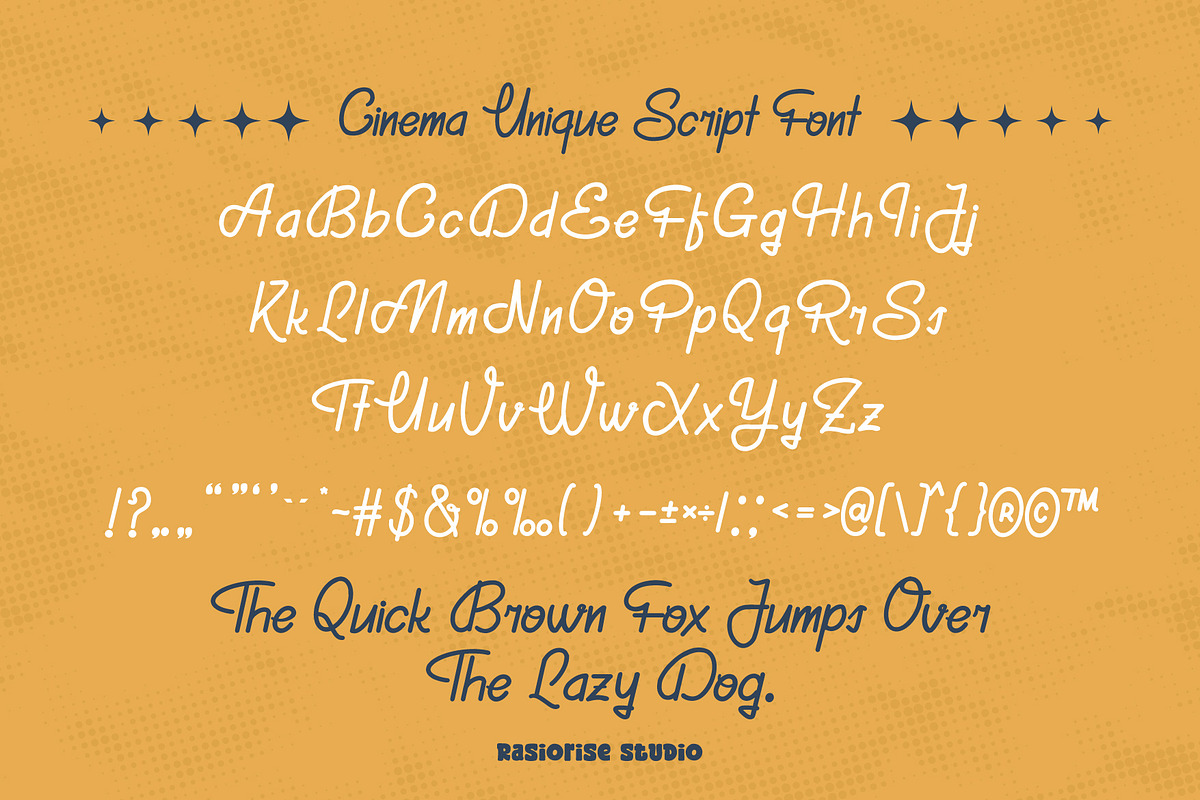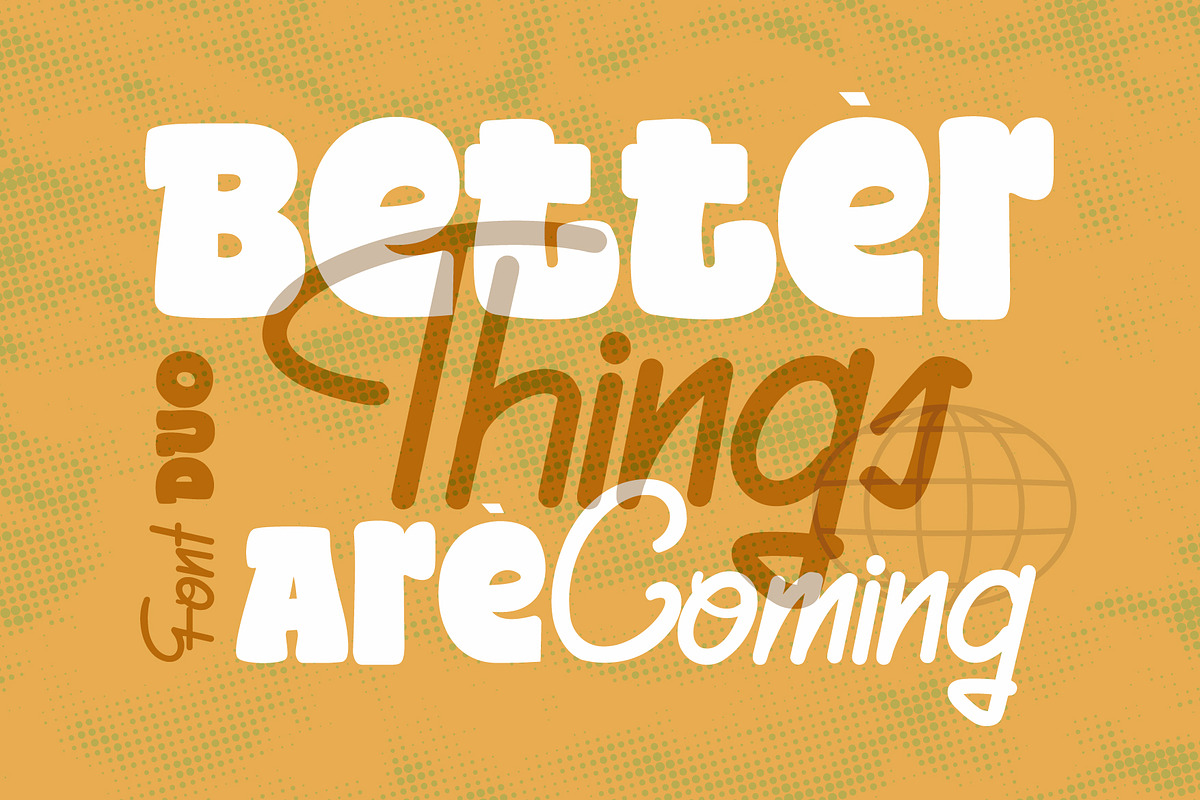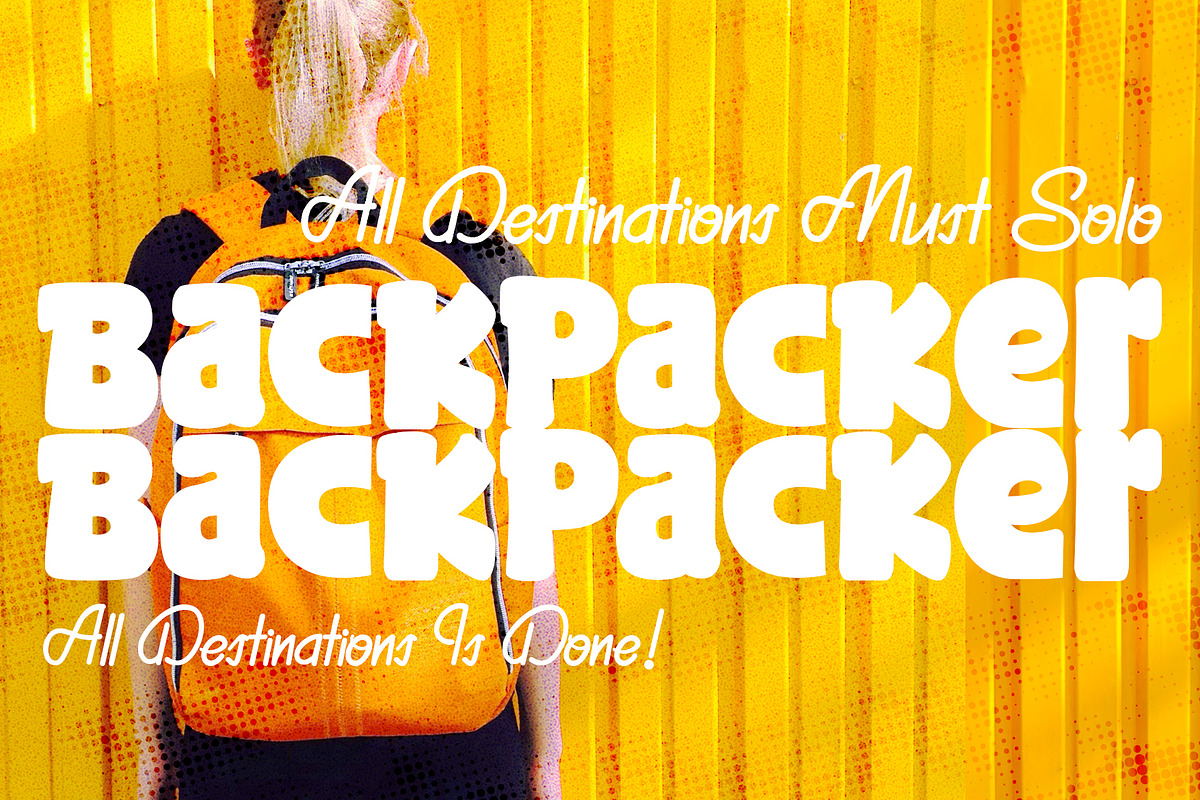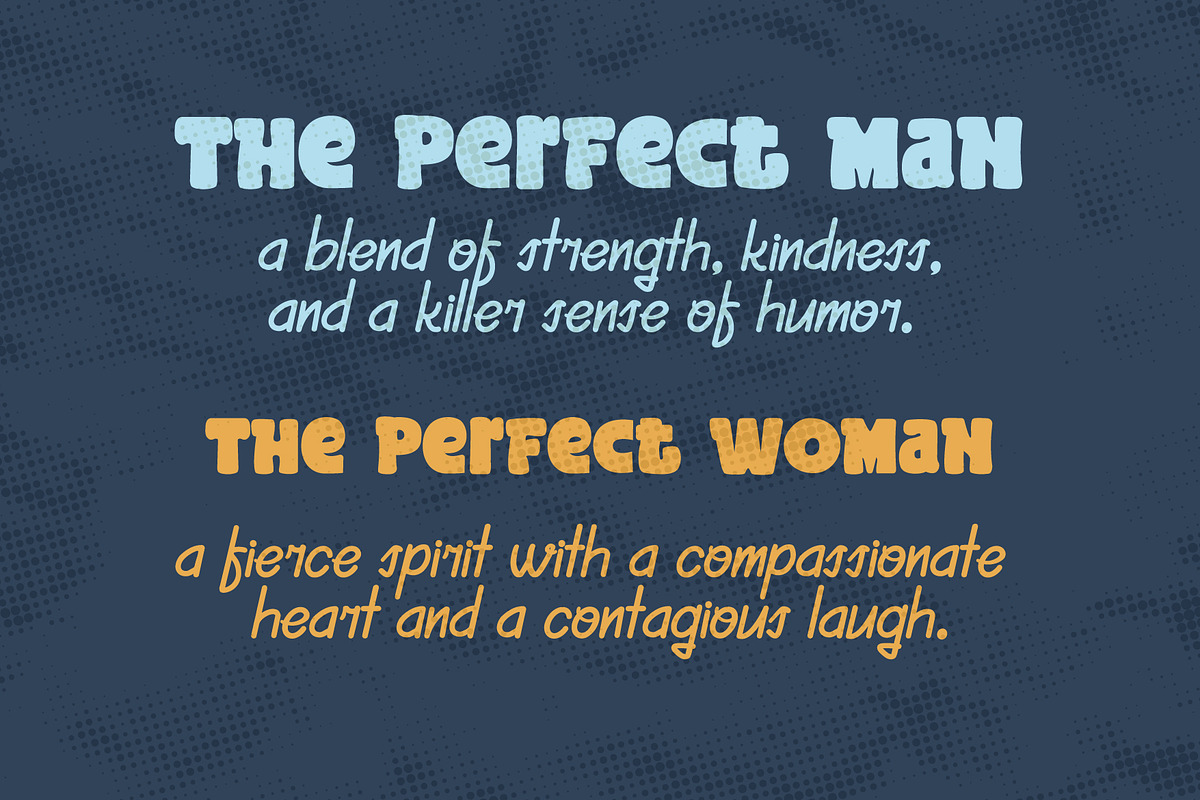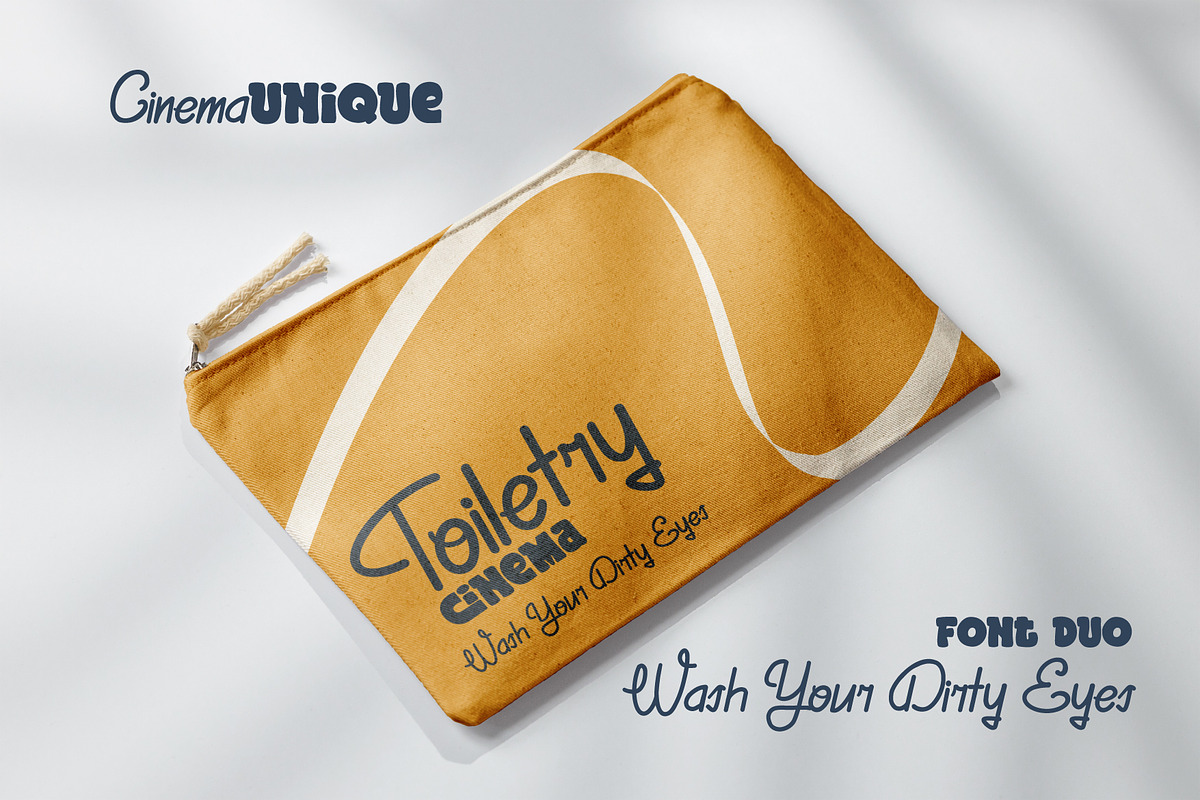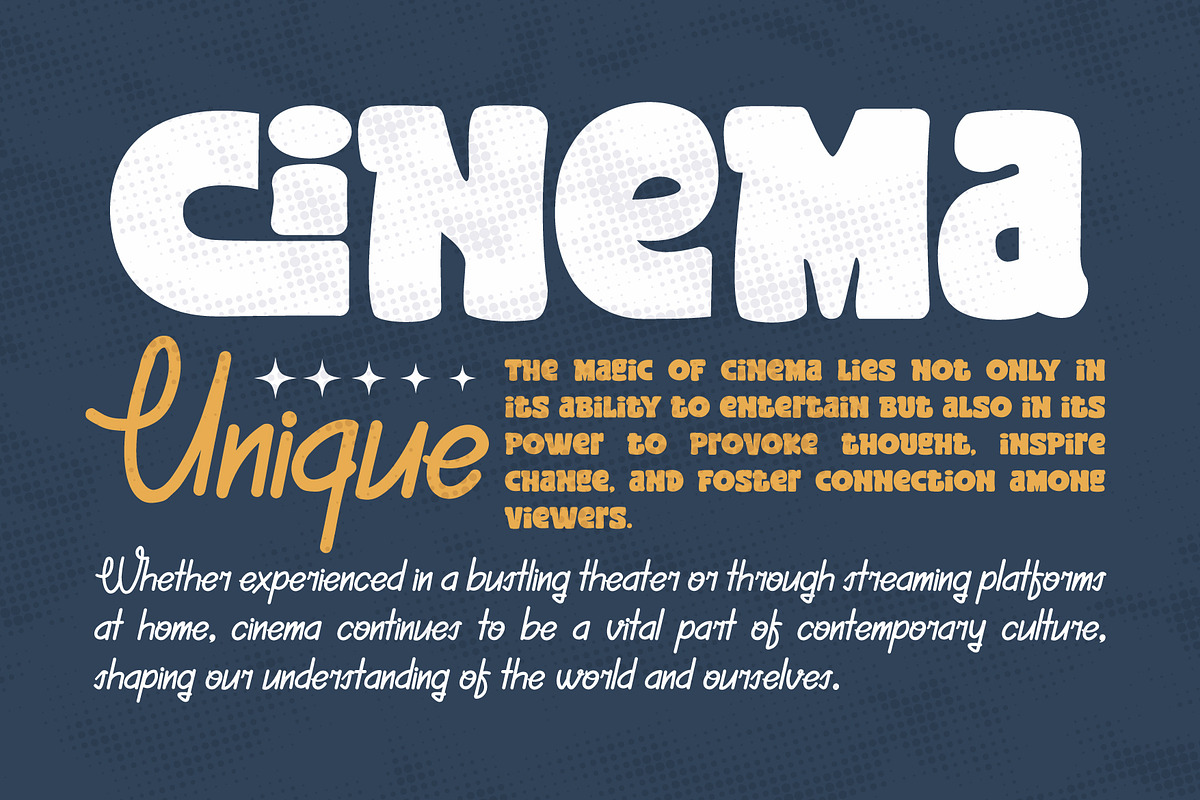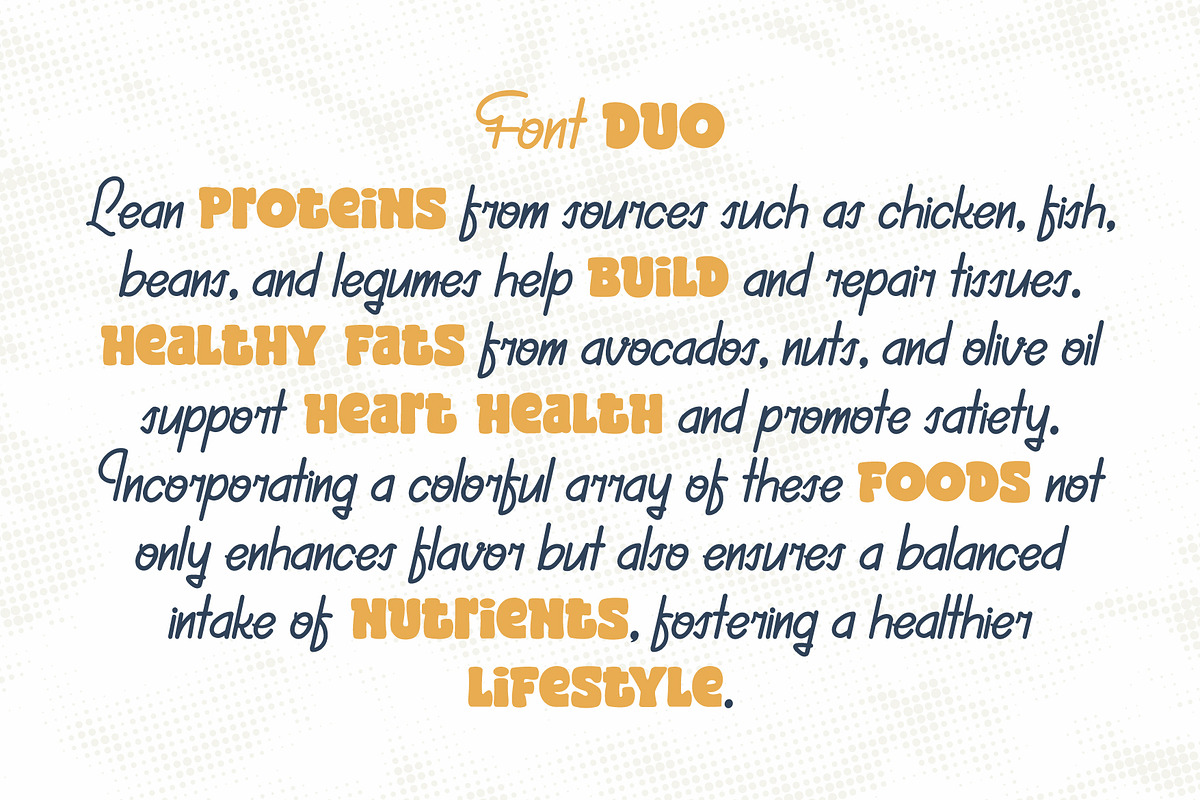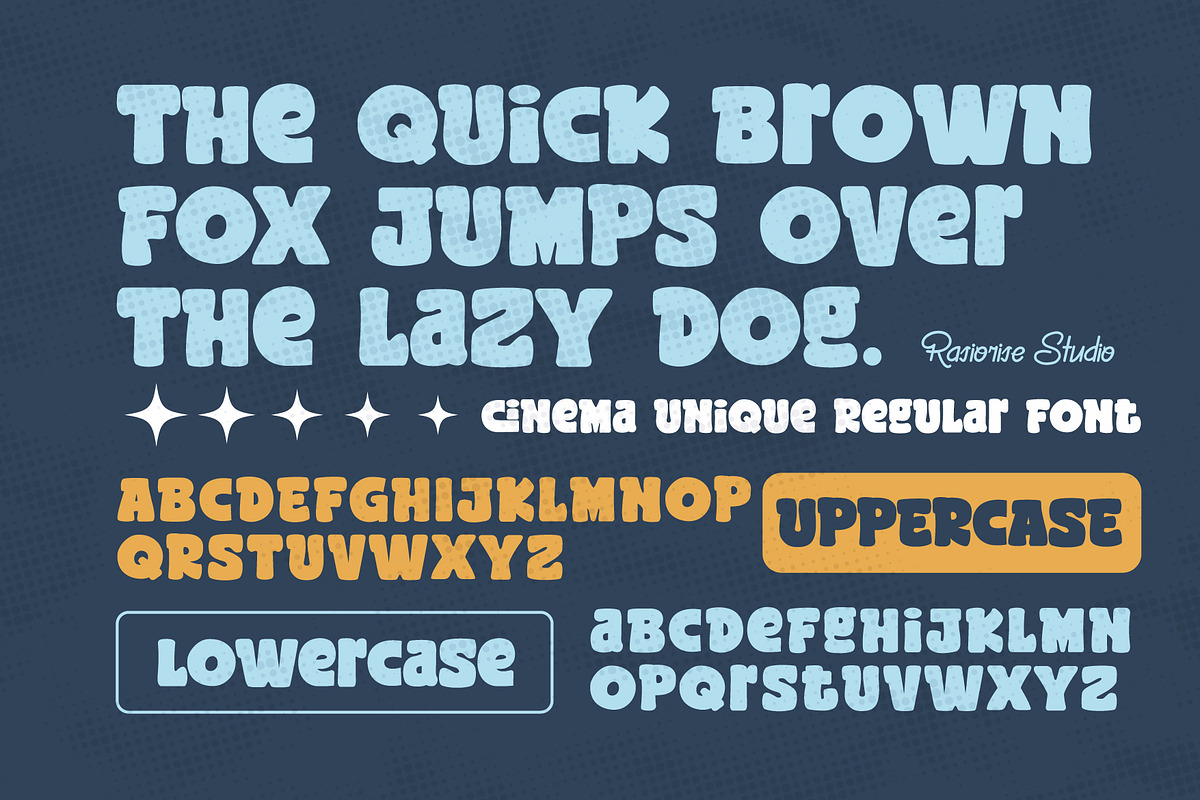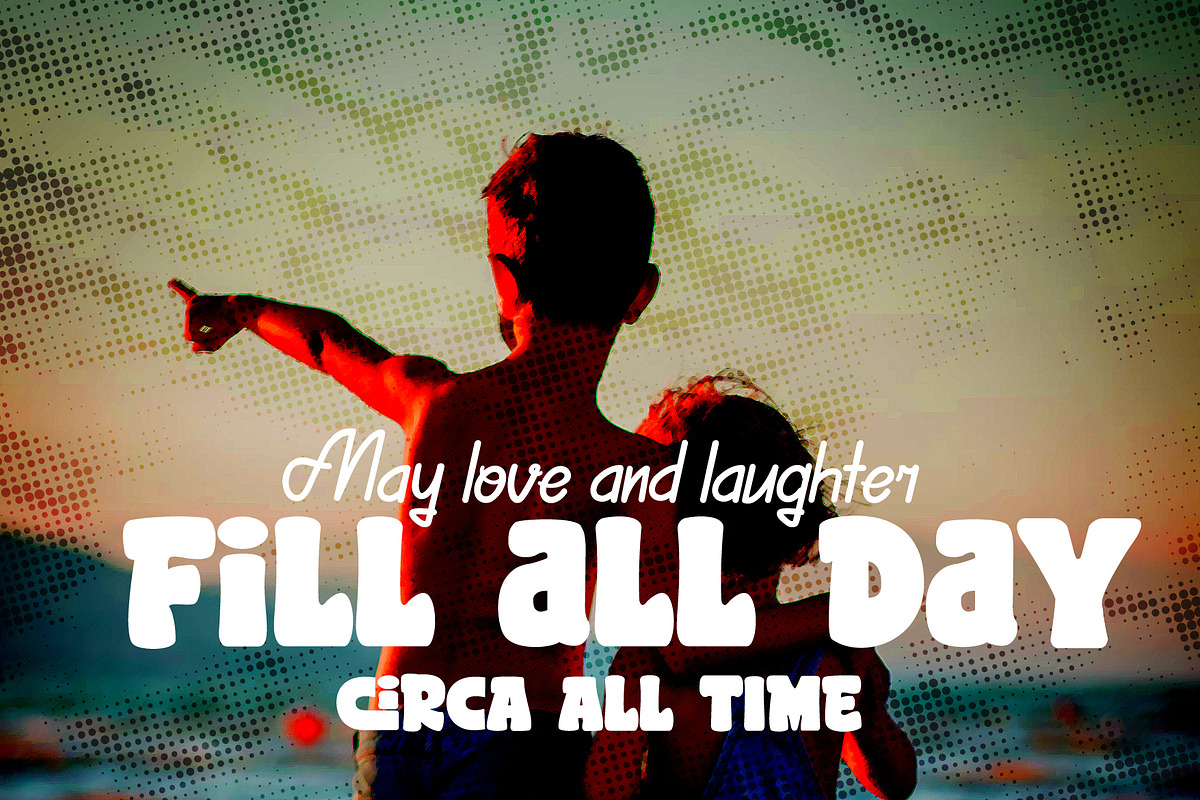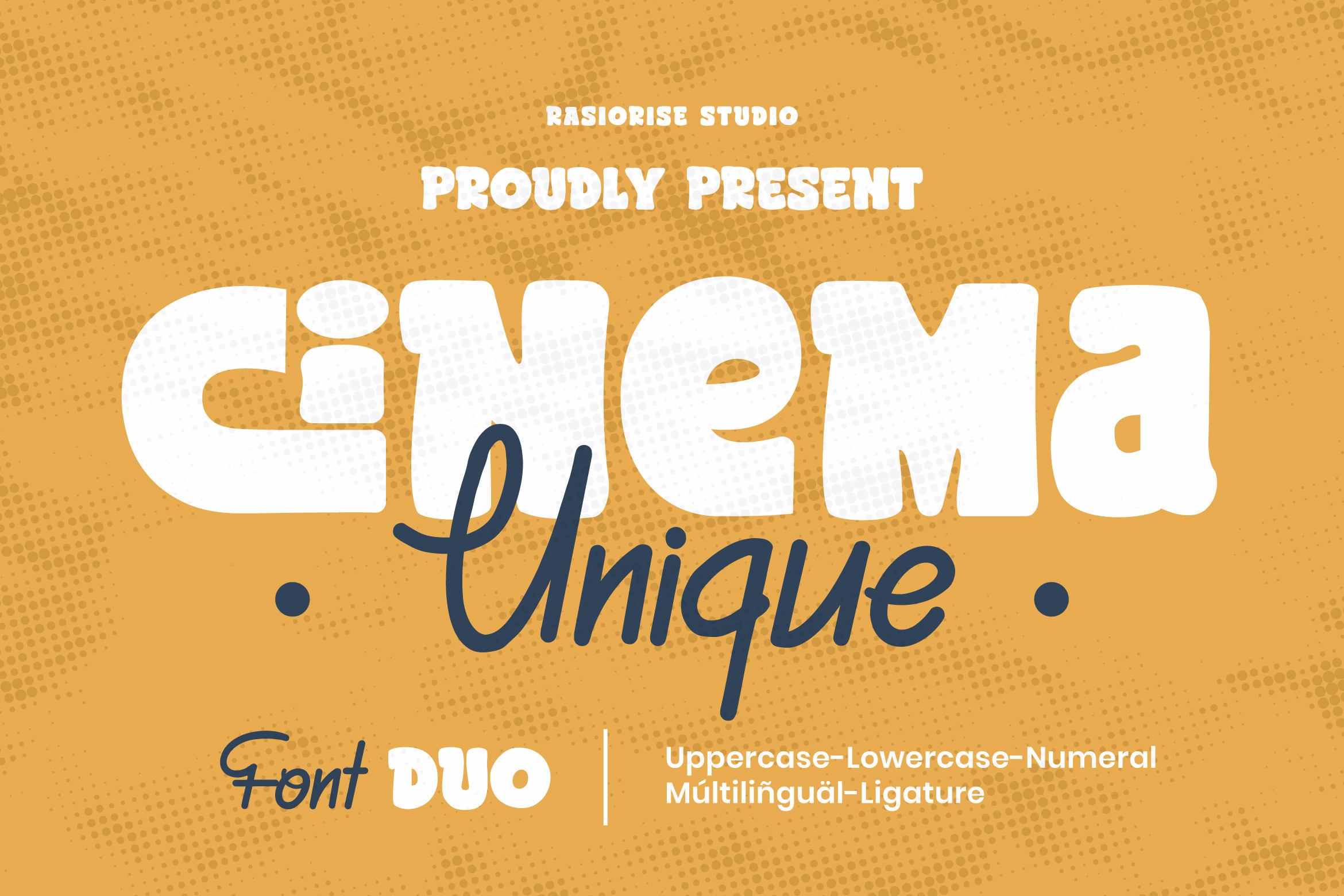
Cinema Unique a Handwritten Font Duo
Hello Everyone! Cinema Unique Font has been released for those of you who are looking for a Font Duo is Handwritten Font combines the playful of modern script with the clean lines and a bold sans-serif typeface. The font is inspired by the Script Handrawn font with a few combine to mixplayful bold like a Pop and Playful style. With its easy-to-read characters and artistic flair, you can effortlessly create beautiful typography that stands out. Unleash your creativity with CinemaUnique and let your projects greating shine!.
Cinema Unique very suitable for Logotype, Book Cover, Badge/Emblem Design and Logo, Gift Card, Gretting Card, Poster, Merchandise, Packaging Label, and much more.